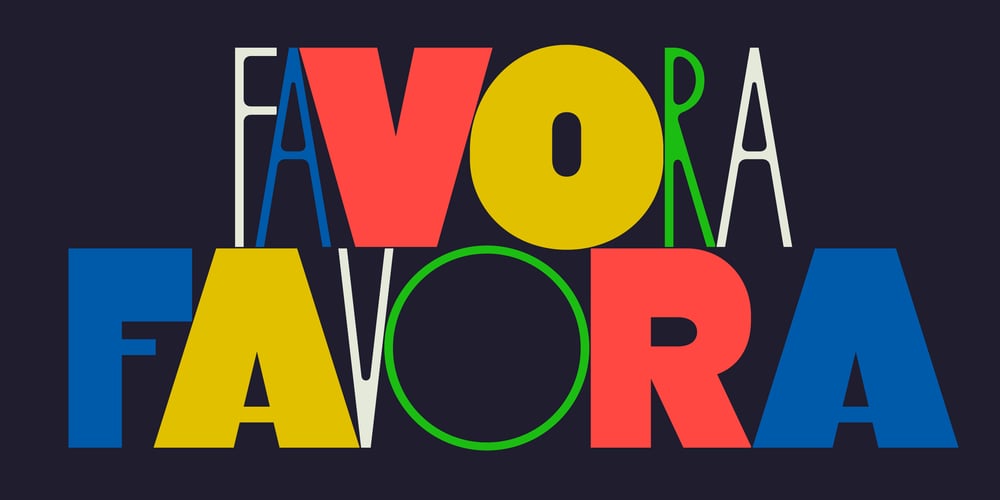
Favora
Favora font
Favora Font Family was designed by Rodrigo Fuenzalida, Alexander Wright, Michelle Benaim Steiner and published by In-House International. Favora contains 1 styles and family package options. Favora is a typeface for how things move forward, how society makes progress, and how hope becomes action. The two-weight display typeface channels the spirit of transformative moments. Named for a bold vision of the future, it strikes a powerful balance between commercial authority and utopian aspirations.The type’s thicker weight is inspired by commercial and protest signage, large scale imprint posters, public announcement style. It’s thinner counterpart brings up sophisticated building signage, architectural engravings / metal, fancy invitations, advertising—committing to possible utopias.In both cases the type is imbued with hope and optimism, they’re a little dusty and feel a bit bright eyed in possibility. There’s promise of progress in work and society. There’s trust in a better outcome. Our visual samples dare to dream of a world in which climate action is widespread, and technologies that decarbonize are the norm in every home and public space. As the creative studio behind the typeface, we wanted to bring this typeface for hope into climate space. We built joyful, colorful samples around ads for homewares like heat pumps and induction stovetops, as well as campaigns encouraging climate-rational behavior. As climate forces us to face the universal crisis of our time, Favora gives us a typeface to express a new hope for progress. It’s perfect for optimistic identities, expressive packaging, and genuine, effortless messaging—as well as posters, billboards, apparel and digital displays that are instantly recognizable. Favora was designed by Alexander Wright with Michu Benaim Steiner at In-House Int’l foundry, and developed by Rodrigo Fuenzalida at FragType. In-House International is a creative agency delivering branding breakthroughs for game changers.In-House foundry offers bold, fearless, and expressive, display typefaces that tell a story. Its previous releases have been featured on Design Milk, DesignBoom, Slanted, PAGE. They’ve also been used to create standout work by designers around the world, and even won some awards.